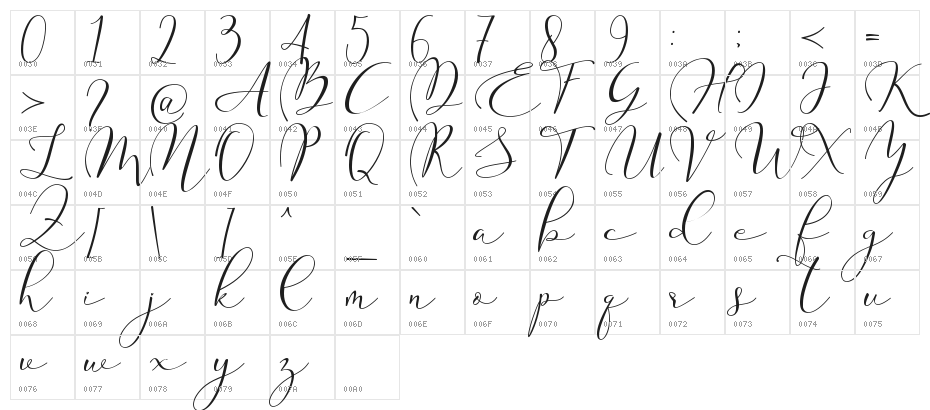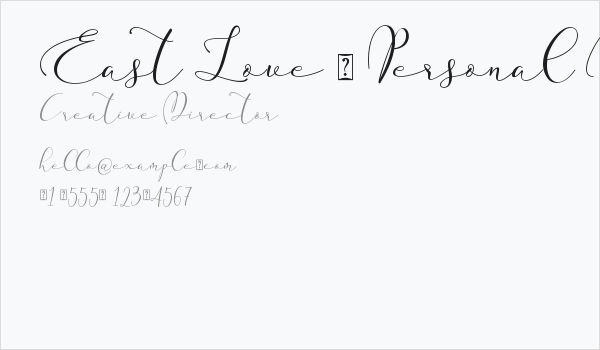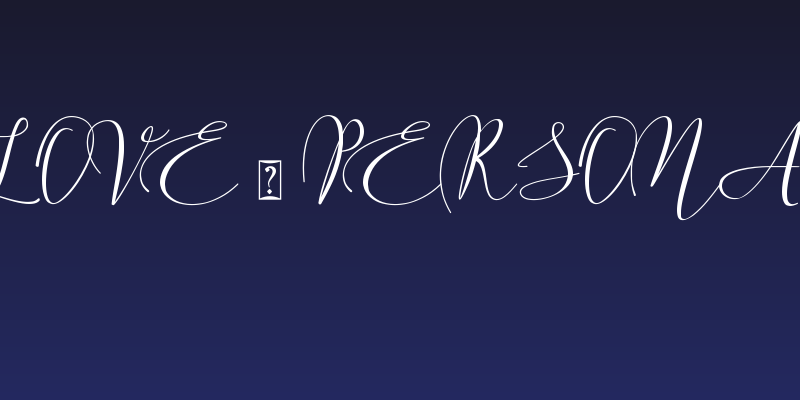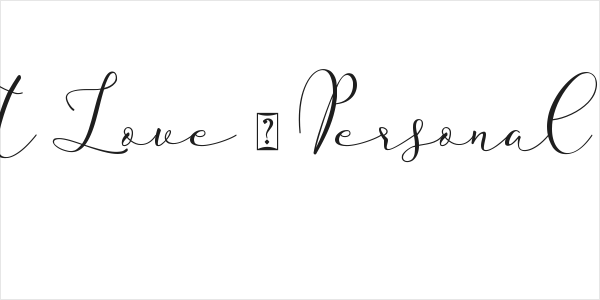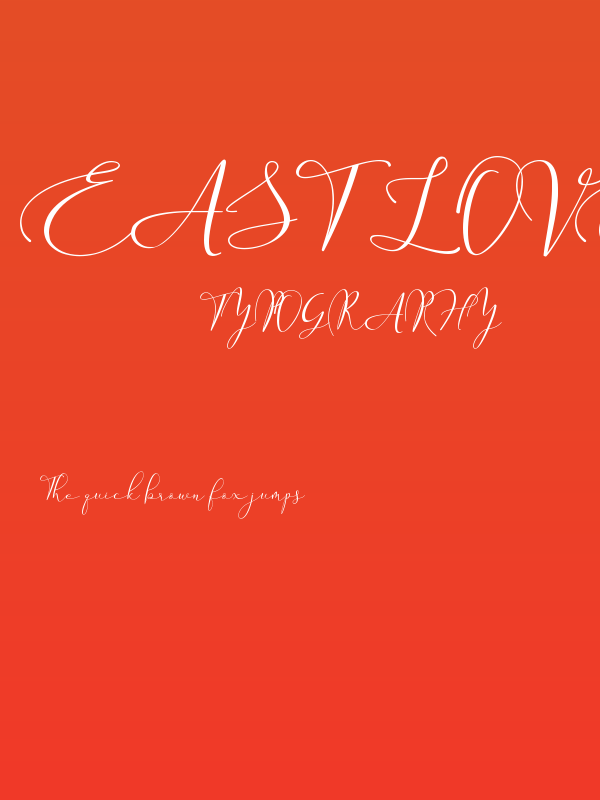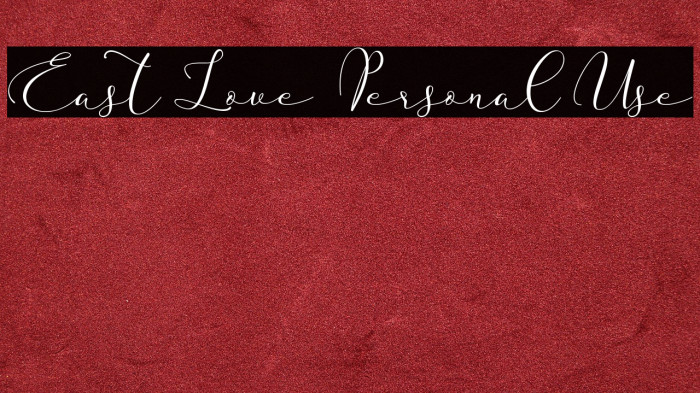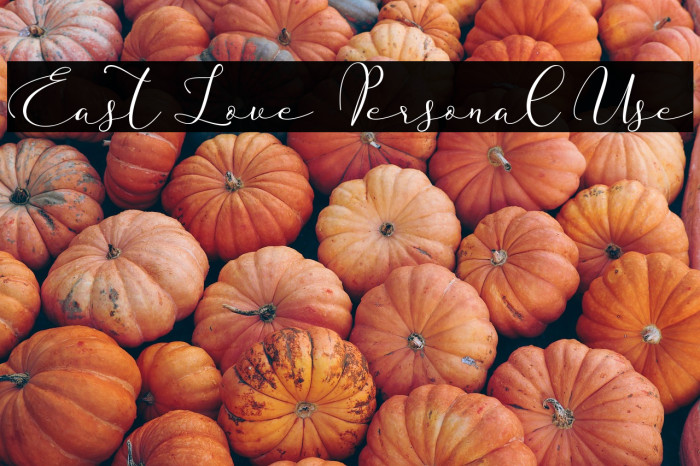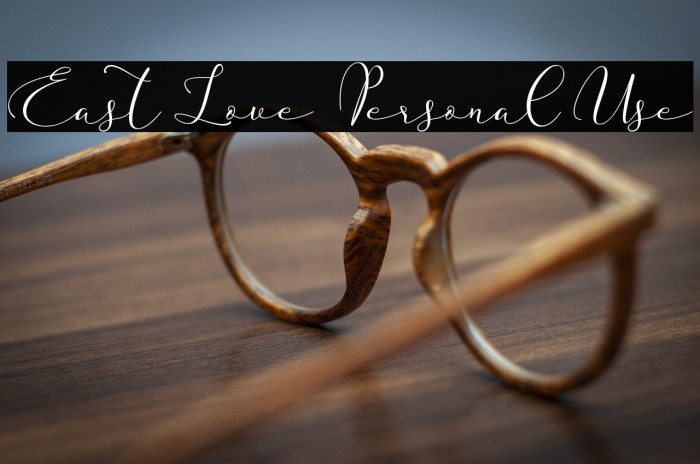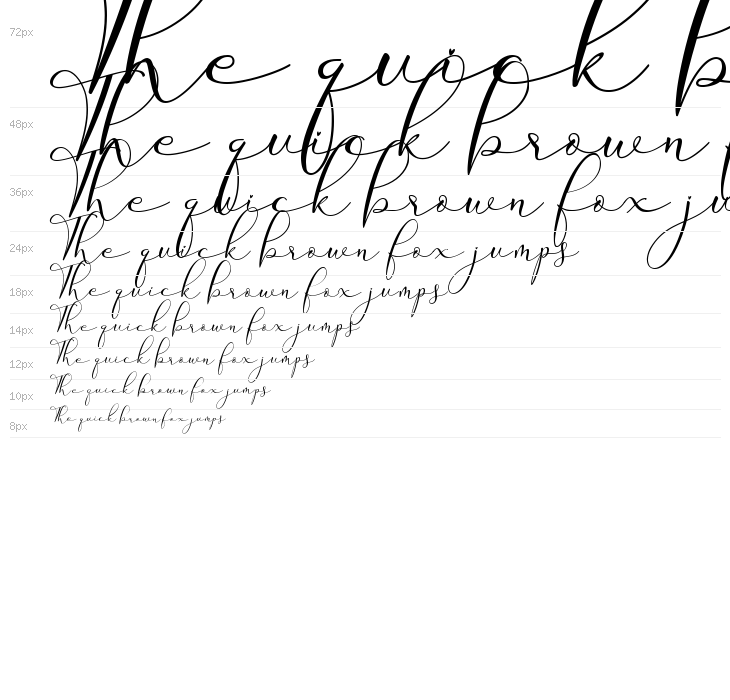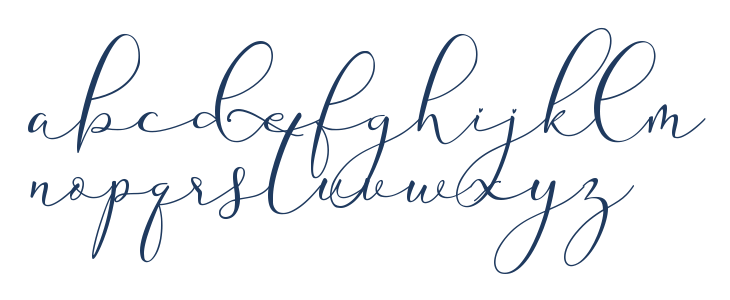
East Love - Personal Use Font
This font features an elegant and flowing script style, characterized by its graceful curves and loops. The uppercase letters are ornate, with sweeping lines that give a sense of fluidity and movement. The lowercase letters maintain a consistent style, with delicate connections between characters that enhance its cursive nature. Numbers are bold and slightly more structured, providing a nice contrast to the letters. The special characters are designed to match the overall aesthetic, ensuring a cohesive look. This font is perfect for projects that require a touch of sophistication and elegance.
| Use Case | Headlines, Invitations, Logos |
| Proposed Projects | Ideal for wedding invitations, greeting cards, branding, and elegant logos. |